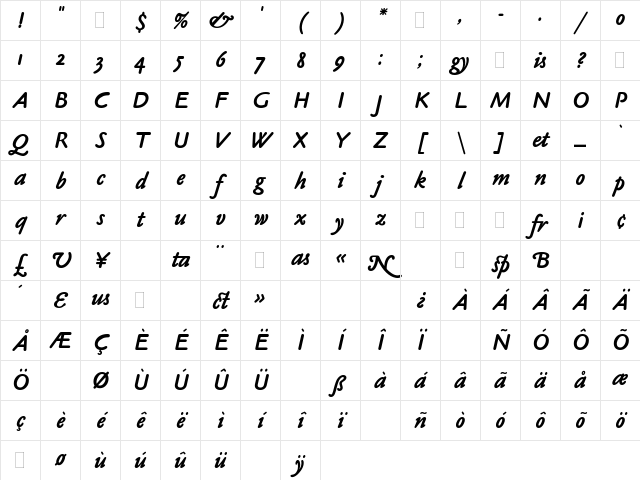
Complete ClaudeSansBoldItalicPlain Regular glyph index. Displaying only characters natively supported by ClaudeSansBoldItalicPlain Regular font.
ClaudeSansBoldItalicPlain is a composed and adaptable typeface that performs quietly and consistently across a wide range of design contexts. The slanted form adds forward momentum and visual energy. Its bold stroke weight gives it real presence on the page.
Pro Tip: Use ClaudeSansBoldItalicPlain for emphasis, pull quotes, and subheadings where its slanted energy can add rhythm to the layout.